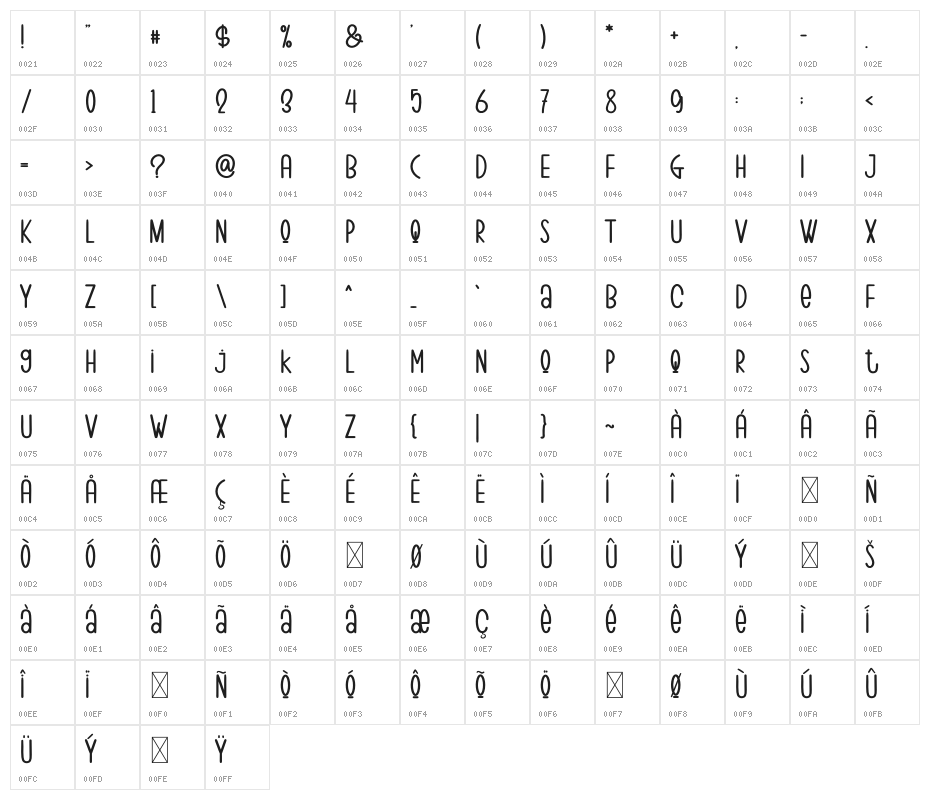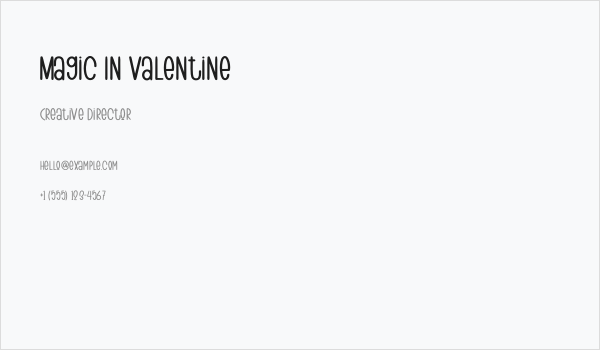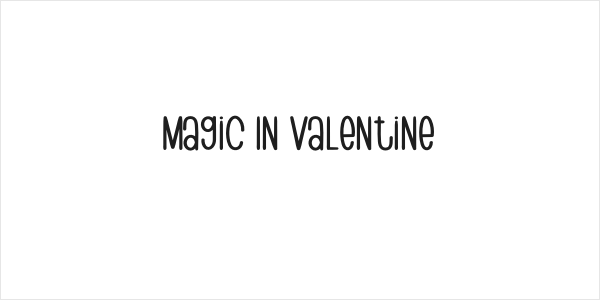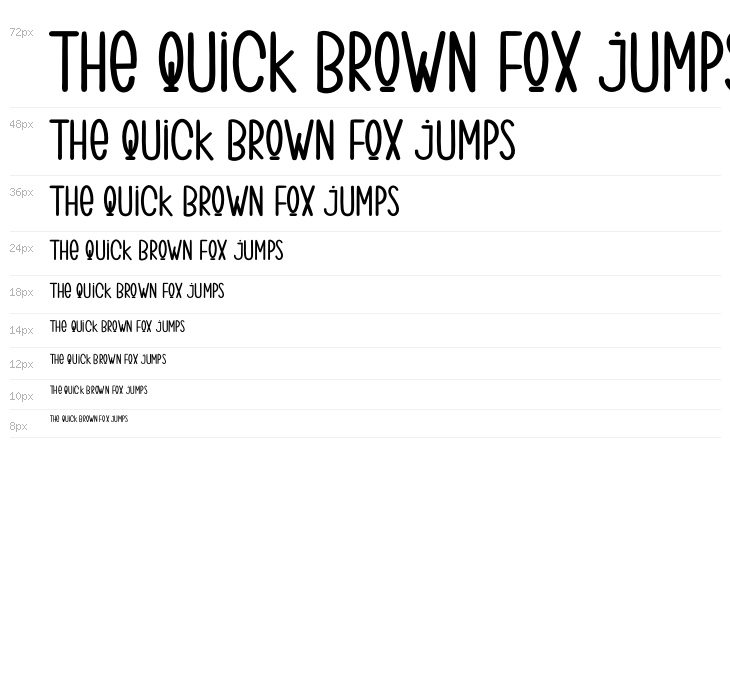
Magic In Valentine Font
Magic In Valentine Description
This playful and whimsical font features a unique blend of rounded and elongated letterforms, creating a sense of fun and creativity. The uppercase letters have a distinctively tall and narrow appearance, while the lowercase letters maintain a consistent style with slight variations in height and width. The numbers are bold and easily readable, complementing the overall design. Special characters are crafted with the same playful spirit, adding to the font's versatility. The strokes are consistent in thickness, providing a uniform look across all characters. This font is ideal for projects that require a touch of personality and charm.
| Proposed Projects | Perfect for children's books, greeting cards, playful branding, and creative posters. |